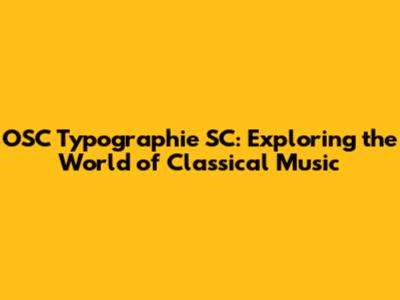
- Johann Sebastian Bach: Bach’s music, often associated with strict counterpoint and mathematical precision, is visually reflected in the clarity and order of the sheet music. The typography used to represent his work often employs classic serif fonts, providing a sense of formality and the historical setting. Think about the ornate, precise layouts. These represent the structured nature of his compositions. These designs show the architectural integrity of Bach's musical genius. Concert programs featuring Bach’s work may use similar classical fonts to express the historical weight and the emotional depth of his music.
- Wolfgang Amadeus Mozart: The essence of Mozart's music is often captured with elegant, flowing typography. The designs might use slightly more elaborate and decorative fonts, which reflect the grace and refinement of Mozart's melodies. The layouts are typically designed to create a sense of balance and harmony, echoing the structure in Mozart’s music. Album covers, concert posters, and other promotional materials often use this typography to invite the audience into the world of Mozart. The overall effect is both pleasing and evocative.
- Ludwig van Beethoven: His music, which is noted for its emotional intensity and dramatic power, is reflected by using bold, dramatic typography. Album art and concert posters might use strong, assertive fonts. These reflect the revolutionary nature of Beethoven’s compositions. The layouts are often energetic, designed to convey the passion and upheaval of his music.
- Claude Debussy: Debussy's music, with its dreamy and impressionistic character, is often represented with softer, more fluid typography. Typography with a light and airy feel captures the ethereal nature of his compositions. Graphic designers often use watercolor textures and subtle color schemes to evoke the impressionistic quality of Debussy's sound. The result is a visual experience that harmonizes with the music, enhancing the emotional impact.
Hey music lovers! Ready to dive deep into the beautiful world of classical music, particularly through the lens of OSC Typographie SC? This article is your ultimate guide, exploring everything from its rich history to its profound impact on culture. We'll examine some of the most iconic composers and pieces, and also discover the unique role typography plays in amplifying the experience of classical music. So, grab your headphones, get comfy, and let's embark on this melodic journey together!
Understanding OSC Typographie SC and Classical Music's Interplay
Let's start by addressing the elephant in the room: What exactly is OSC Typographie SC, and how does it relate to classical music? Well, imagine a creative platform where the elegance of typography meets the timelessness of classical compositions. OSC Typographie SC, or rather, the way we perceive and represent classical music through typography, graphic design, and other visual media. It's about how the visual elements help us understand, appreciate, and experience the music more deeply. For example, think about the ornate fonts used in sheet music, concert posters, or album covers. These aren't just decorative; they're vital to conveying the emotional tone and historical context of the music. Furthermore, the interplay is all about the integration of music and typography to create a cohesive and immersive experience for the audience. We are not just listening to music; we're also visually engaging with its essence through carefully selected typography. We are seeing how each element enhances the other, contributing to a more comprehensive understanding of the piece. The beauty of this interplay lies in its ability to translate the abstract nature of music into a concrete and easily understandable form. It uses visual cues, such as the style of the text, the placement of words, and the overall design, to subtly guide the listener's understanding and appreciation of the music. This visual representation can range from minimalist designs to complex compositions, all of which aim to capture the spirit and complexity of the music. The strategic use of typography does not only present the details of the music but also offers a richer understanding of it. This method turns the viewing into an active and personalized exploration of the music, making the classical music more accessible and engaging to a wide audience.
Let’s think about how typography can influence the perception of a musical piece. A font can evoke different emotions and historical periods. For instance, a classic serif font might suggest formality and tradition, suitable for Bach or Mozart, while a modern sans-serif font might reflect a more contemporary composer or a minimalist performance. Moreover, the design of concert posters or program notes is another arena where typography plays a crucial role. The layout, choice of fonts, and color schemes must work in harmony to communicate the nature of the music to be performed. This visual presentation sets the stage for the concert, providing a taste of the experience. It invites the audience to prepare themselves emotionally and intellectually for the music. This convergence of design and music underscores the fact that classical music is not just something to be heard. It's a comprehensive experience, enhanced through thoughtful visual and tactile elements. From the elegant script on a concert ticket to the crisp, clear text in a musical score, every detail contributes to the overall artistry. Finally, the synergy between classical music and OSC Typographie SC creates a more profound and immersive experience for the listener. It adds another layer of appreciation by making the music more tangible and engaging. This intersection highlights the importance of visual communication in making classical music accessible and relevant in the modern era.
The Evolution of Classical Music: A Typographical Journey
Classical music has a fascinating history, spanning centuries and encompassing diverse styles. Let's trace this evolution, looking at how typography has mirrored and shaped its development. The earliest forms of musical notation, dating back to the medieval period, employed rudimentary symbols, very different from the elegant, precise notation we see today. As music evolved, so did its notation, with more complex symbols and systems appearing. During the Renaissance, the advent of the printing press revolutionized music distribution. Sheet music became more accessible, and the visual clarity of musical scores improved. Typographical innovations made it possible to replicate scores with greater accuracy and in larger quantities, which, in turn, fueled the spread of music across Europe and beyond. The Baroque era saw the development of more elaborate musical forms, and the sheet music followed suit. Engravers and printers used sophisticated techniques to produce detailed scores, with ornate fonts and elaborate designs that reflected the grandeur of the music. Classical music, with its emphasis on structure and form, required a different approach. The scores were meticulously organized, with clear divisions and carefully placed notes to aid in the performance. This visual clarity was essential for musicians to understand and interpret the complex compositions of composers like Mozart and Haydn. The Romantic era introduced emotional intensity and expressive freedom, which was reflected in the typography. Composers sought to convey a sense of passion and drama, and the musical scores, along with the concert programs, adopted bolder fonts and more dynamic layouts. In the 20th century, with the emergence of modernism, typography embraced experimentation. Designers and composers explored new forms of musical notation and graphic representations. The result was a greater range of visual possibilities that matched the expanding horizons of musical creativity. This interplay, from the early notation to the modern typographical experimentation, tells a story of constant adaptation and innovation. It also reveals the essential role that visual elements play in enabling the evolution of musical forms and in shaping their historical context.
Typography's Role in Music's Evolution: The history of typography in classical music is more than just a matter of changing fonts or styles; it’s a reflection of society’s evolving appreciation for music. Each new design, font, or layout style marks a shift in how music is both created and presented. The evolution of classical music and its visual representations show how music and graphic design continually refine each other. In essence, they mirror how our perception and understanding of music itself evolves. This includes how music is written and how the audience interacts with the visual presentation of it. From basic symbols of the Middle Ages to elaborate, detailed scores of the Romantic era, typography has evolved with the needs of the music. Each change has influenced how music is written, performed, and understood.
Iconic Composers and Their Typographical Representation
Let's move on to the composers themselves and how their works are often presented typographically. Composers like Bach, Mozart, Beethoven, and Debussy, each has a distinctive style. Their music is often accompanied by visual representations that try to capture the spirit of their work. Think about the iconic visual associations that connect each composer to their era.
These composers show how their visual presentation is closely intertwined with the musical works. The choice of typography in music marketing, concert programs, and sheet music plays a critical role in how we perceive and appreciate these composers' works. The visual element works in harmony with the auditory element to enhance the experience. The typography helps establish the atmosphere and the emotional framework for the listener. By recognizing this link, we can achieve a deeper appreciation of both the music and its visual presentation.
Keep exploring and enjoying the beautiful world of classical music and its visual representations!